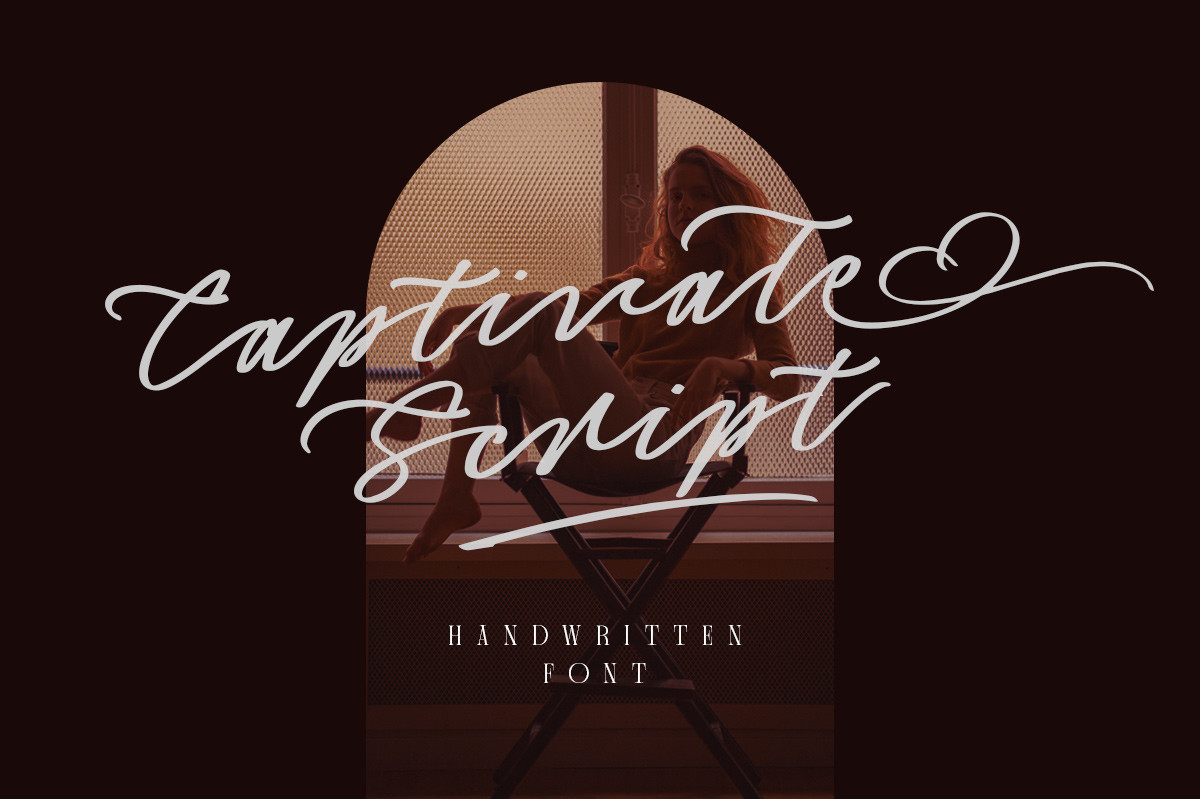
Captivate Script Font
Captivate Script Font is widely used in luxury wedding invitations, high-end beauty branding, elegant fashion magazines, sophisticated event materials, premium cosmetic packaging, upscale restaurant signatures, artistic poster designs, and captivating marketing campaigns.
Captivate Script Font is an exciting typeface that mesmerizes audiences with its flowing elegance and magnetic charm. This font embodies sophisticated allure, graceful beauty, and irresistible appeal, making it perfect for brands that want to convey enchantment, luxury sophistication, and captivating presence in their mesmerizing visual communications.
The Captivate Script Font family consists of Regular, Bold, Light, Italic, Elegant, Flourish, Condensed, and Allure variants. This enchanting collection enables designers to create captivating typographic experiences that maintain sophisticated consistency while offering elegant flexibility for various luxury and premium applications.
The distinctive allure of Captivate Script Font lies in its ability to command attention through flowing elegance and sophisticated grace that seems to dance with magnetic energy. Each letterform demonstrates masterful balance between flowing script tradition and contemporary luxury aesthetics. The font's graceful curves and enchanting details create visual magnetism that captures the essence of sophisticated beauty and irresistible charm.
Luxury brands and beauty companies choose Captivate Script Font for its power to communicate sophisticated allure and captivating elegance. The typeface performs magnificently in high-end fashion communications, luxury spa branding, premium beauty product marketing, and sophisticated lifestyle publications. Its captivating aesthetic appeals to discerning audiences who appreciate refined beauty, sophisticated luxury, and the magnetic appeal of exceptional design quality.
The enchanting craftsmanship of Captivate Script Font includes flowing ligatures, elegant swashes, and sophisticated alternates that enhance the natural magnetism of luxury script typography while maintaining the captivating character essential to premium communication. These alluring features ensure that text maintains the sophisticated presence and magnetic charm that defines authentic luxury branding while meeting the highest standards of professional design for upscale commercial applications.